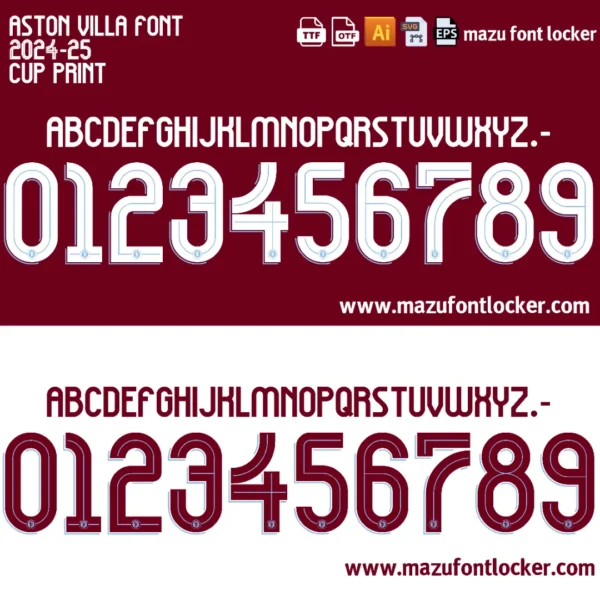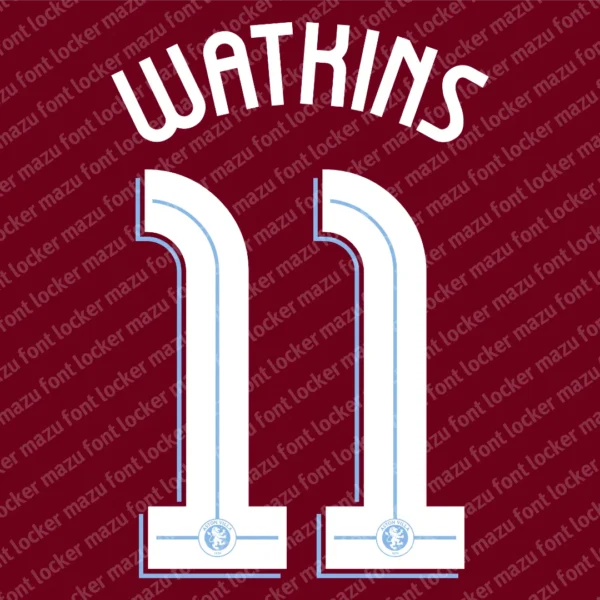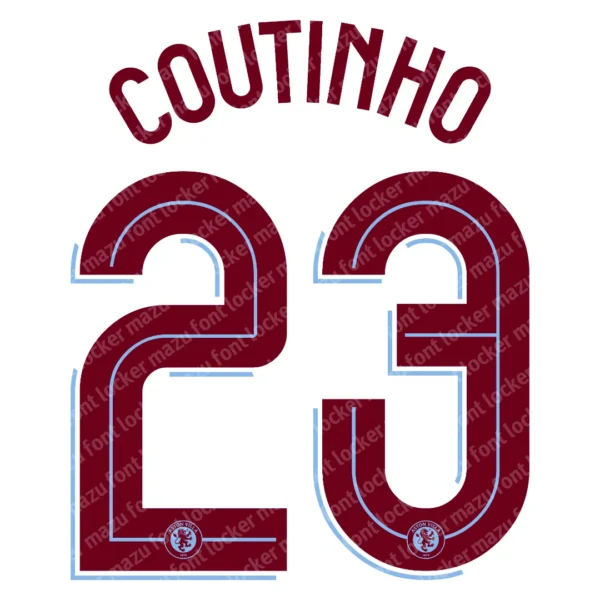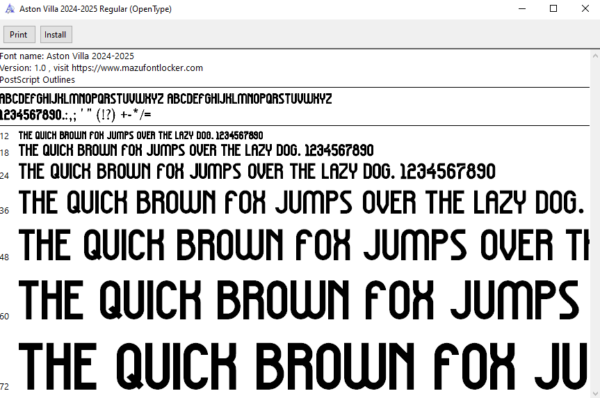
Aston Villa 2024-2025 Font Vector – Incredible Birmingham Lions Vector Kit
Channeling the proud Villa spirit and historic legacy, it features the sharp, classic style that embodies the club’s fighting mentality. Perfect for premium jersey mockups, football designs, and passionate Aston Villa art.
Aston Villa 2024-2025 Font Vector – Claret & Blue Typeface
The Aston Villa 2024-2025 Font Vector is a premium typeface that faithfully recreates the distinctive lettering from Aston Villa’s official 2024-2025 season kit. This vector font kit captures the bold, modern, and proud typography that represents one of England’s most historic football clubs.
Designed for graphic designers, football fans, content creators, and Villans supporters, the Aston Villa 2024-2025 Font Vector delivers high authenticity for jersey mockups, fan merchandise, social media graphics, posters, and creative projects.
Why Choose Aston Villa 2024-2025 Font Vector
This font set is prized for its precision and attention to detail. Every glyph has been meticulously recreated to match the official typography used on Aston Villa’s 2024-2025 home, away, and third kits.
The letterforms are bold, modern, and slightly condensed with clean, sharp edges — delivering the classic Claret & Blue aesthetic with excellent readability for both large back numbers and intricate design work.
The numerals feature athletic proportions, strong contours, and balanced weight, making them perfect for replicating player names and squad numbers on the 2024-2025 kits.
- Full uppercase A–Z and numbers 0–9 in the official 2024-2025 style
- Special Aston Villa crest glyph for authentic number detailing
- Multilingual Latin support with diacritics
- Craft accurate Aston Villa 2024-2025 jersey replicas and mockups
- Design stunning fan art, matchday posters, and campaign visuals
- Create exclusive Claret & Blue merchandise with authentic club identity
- Produce captivating content for Instagram, TikTok, and football communities
- Includes precise crest placement used under player numbers on the official kit